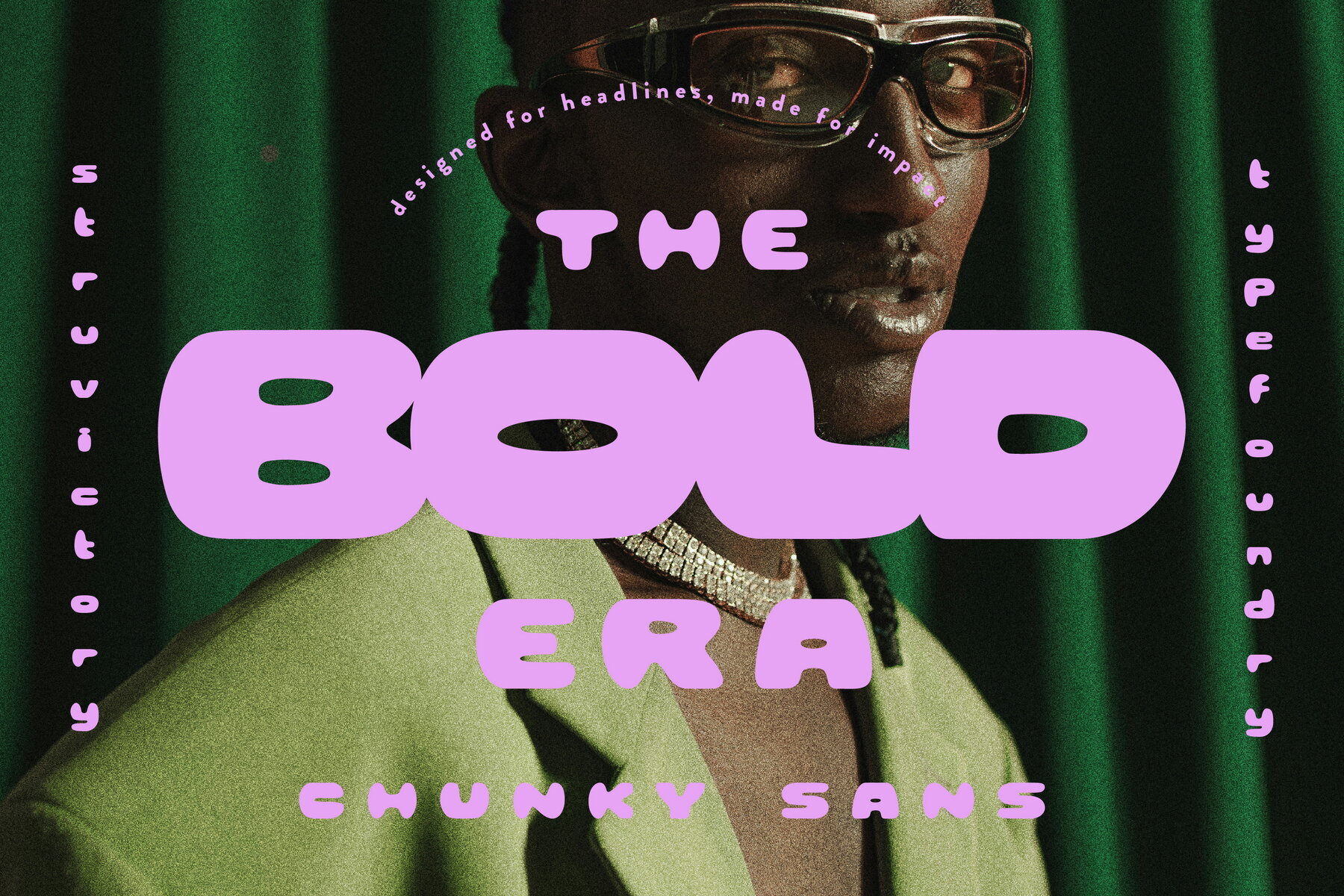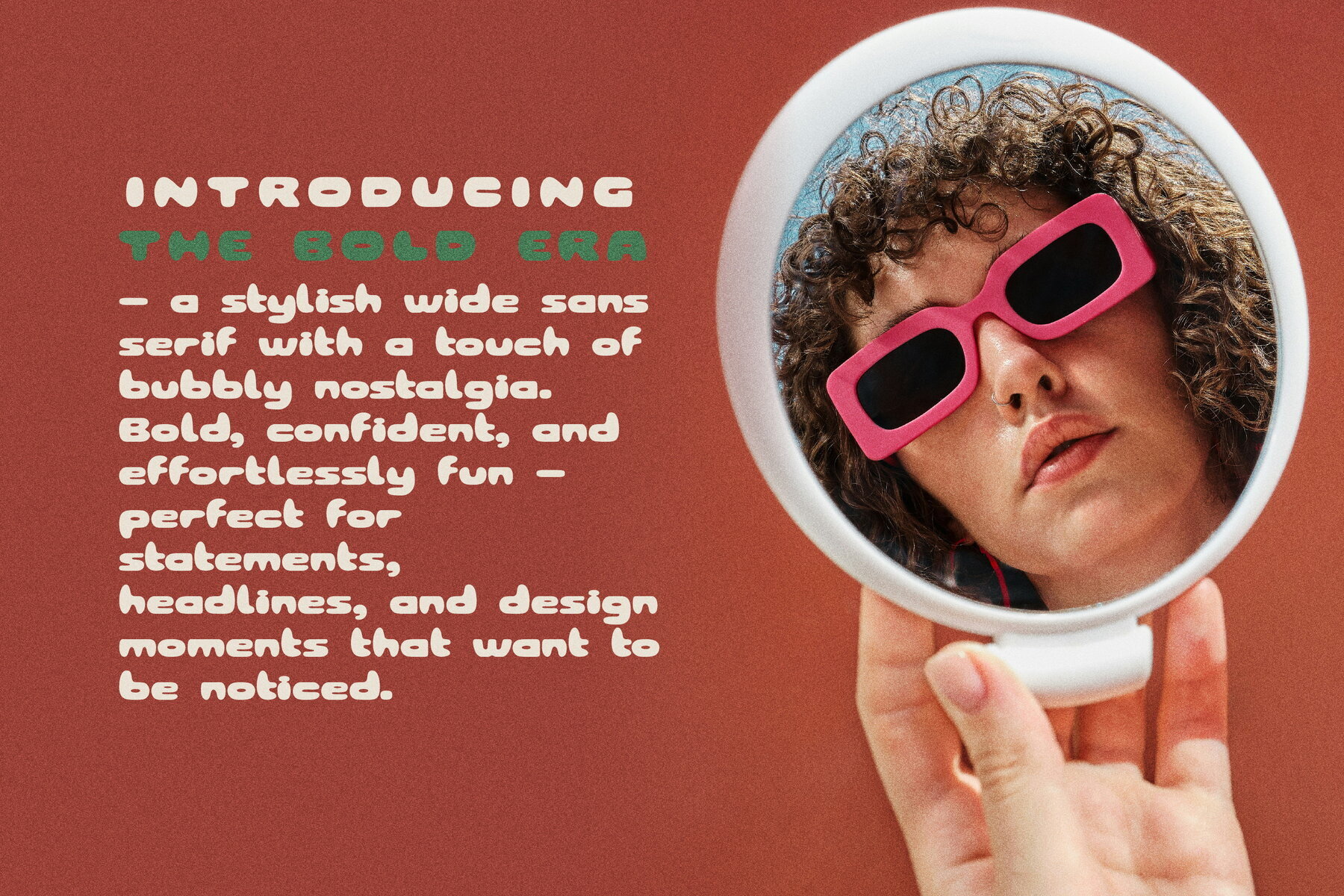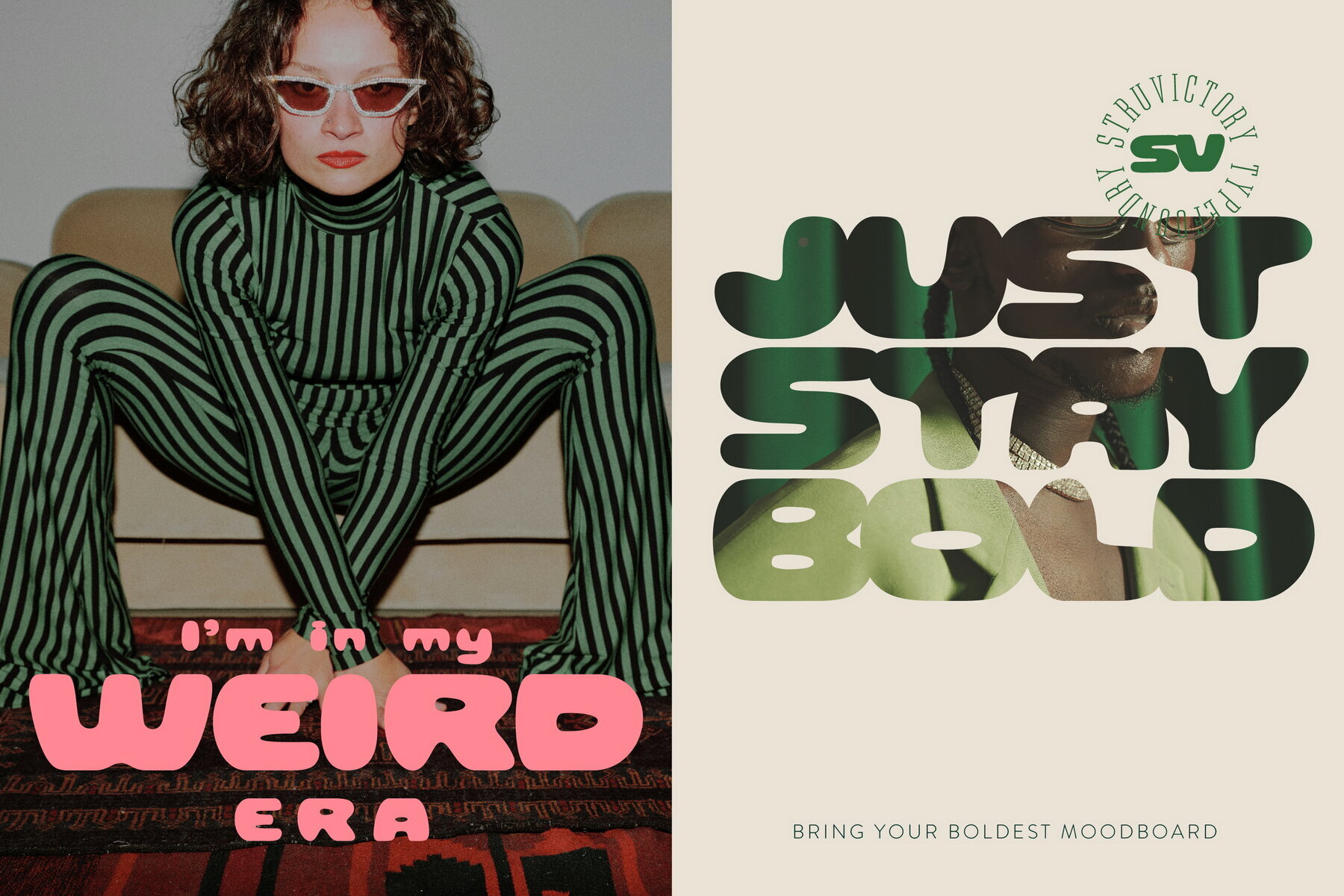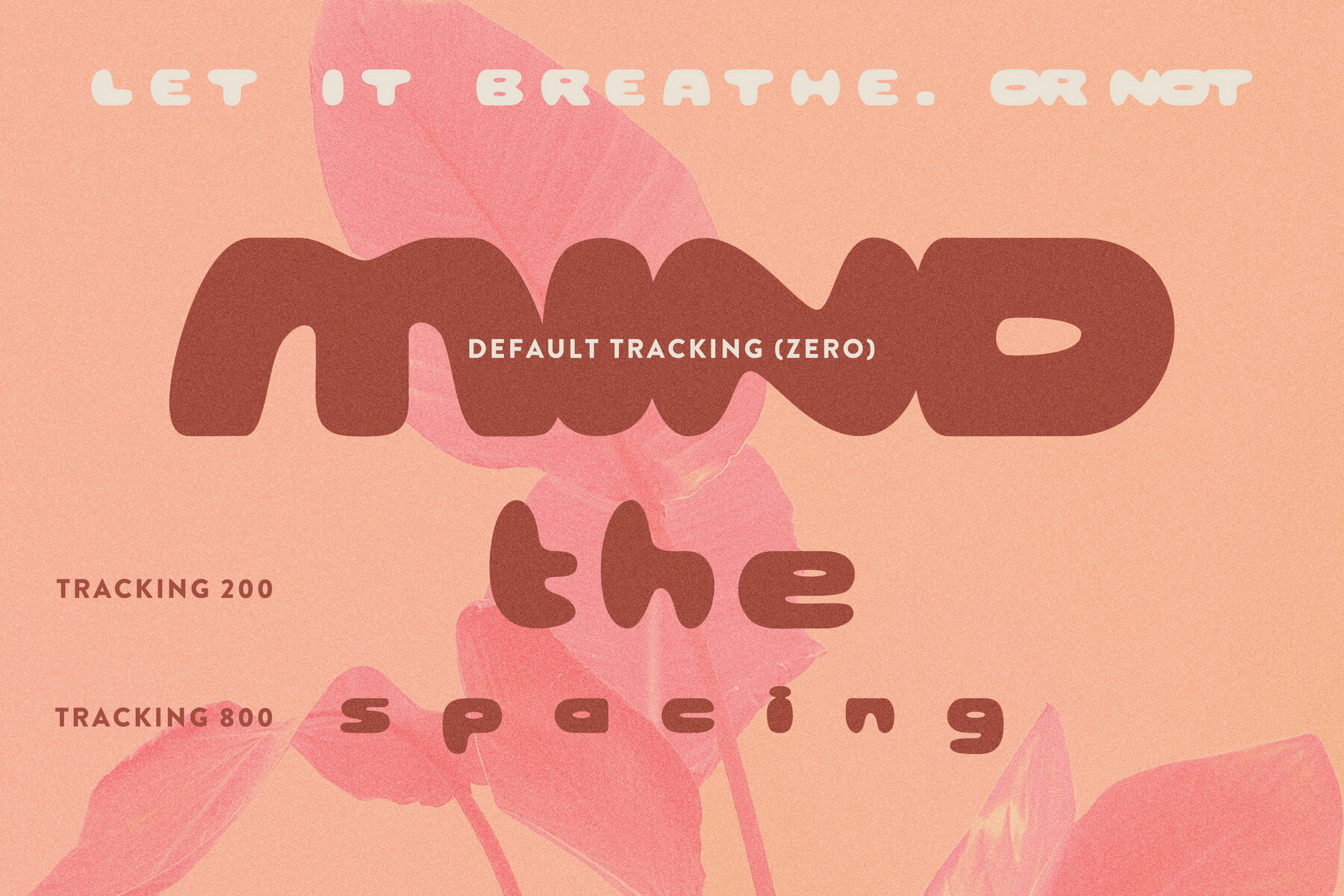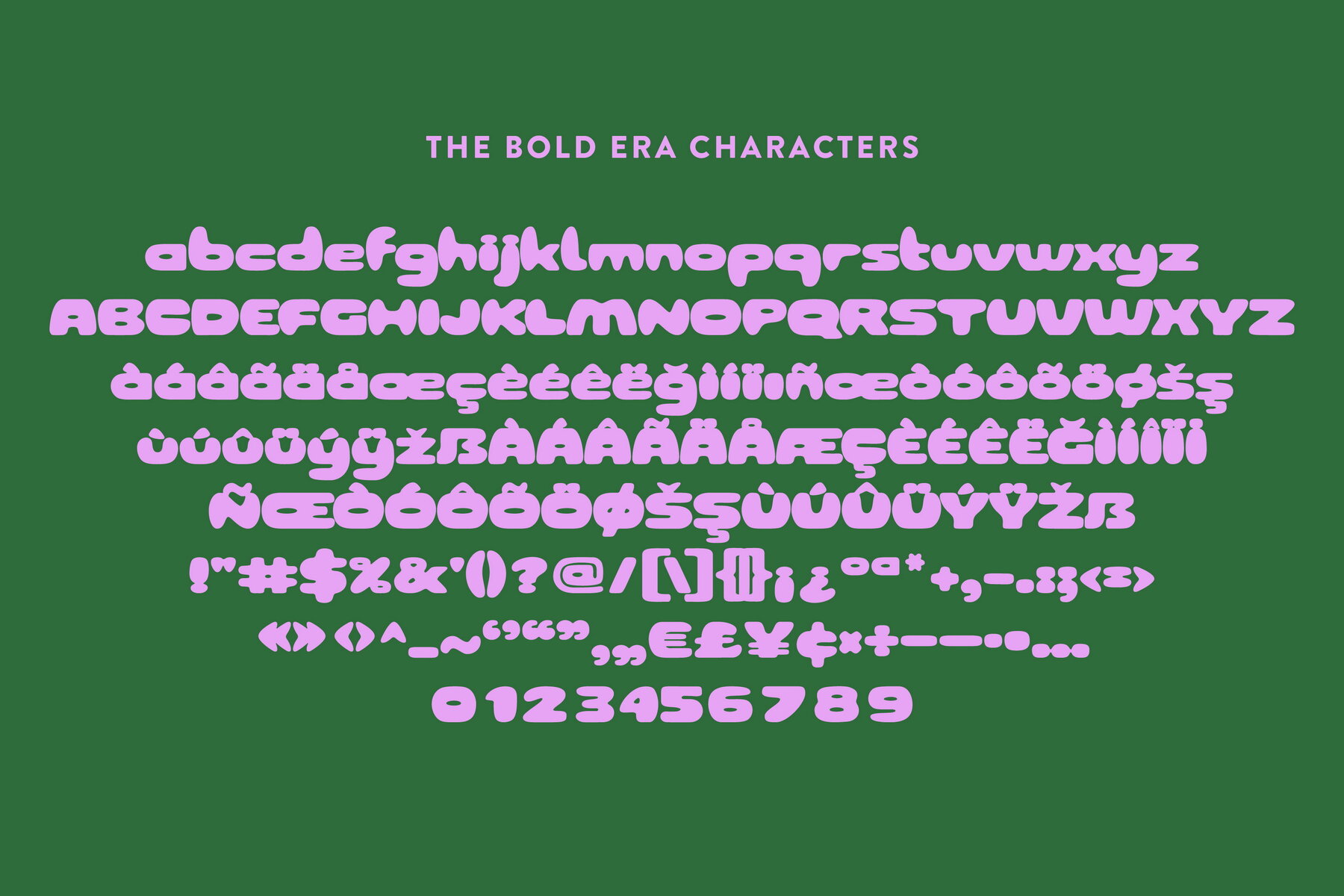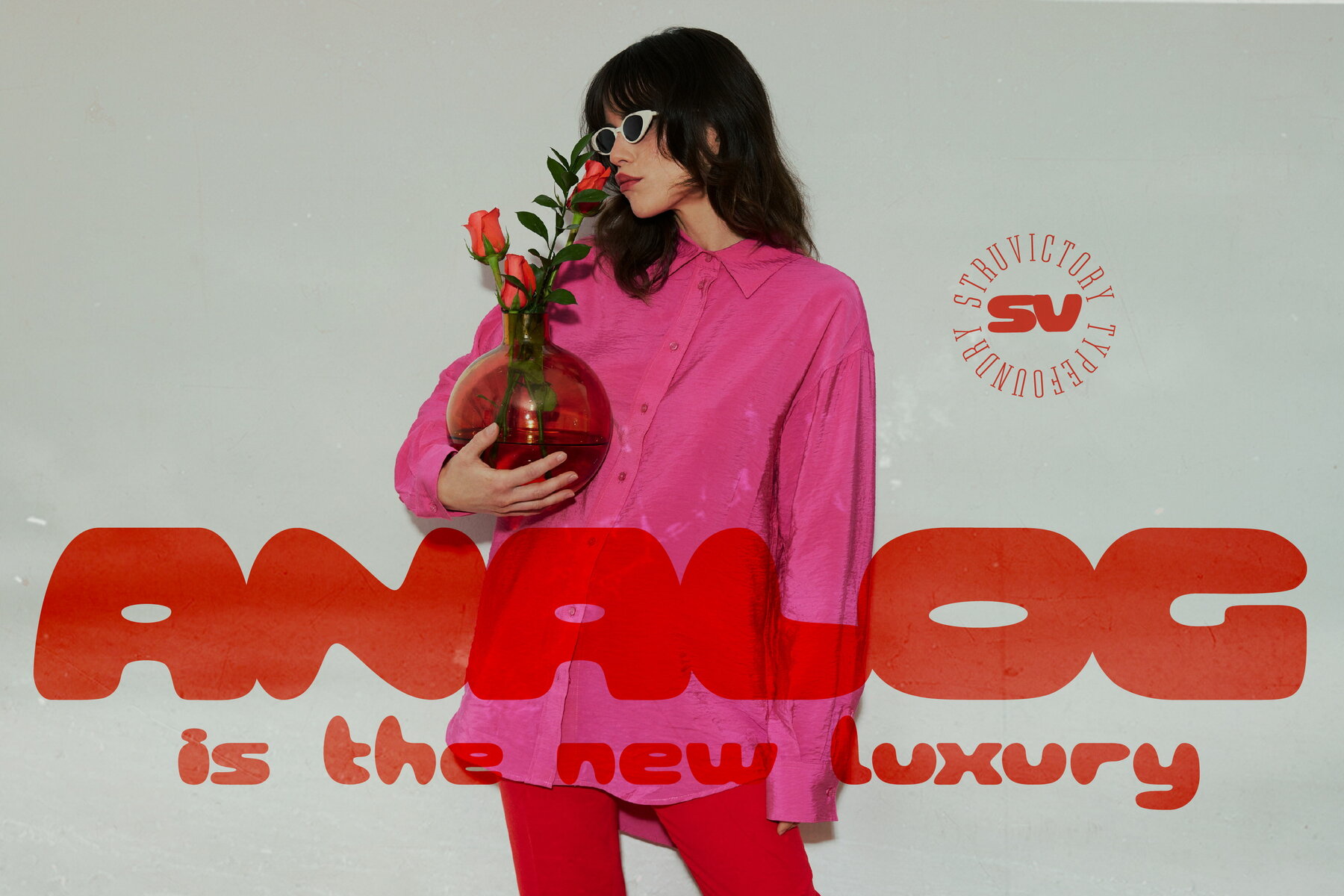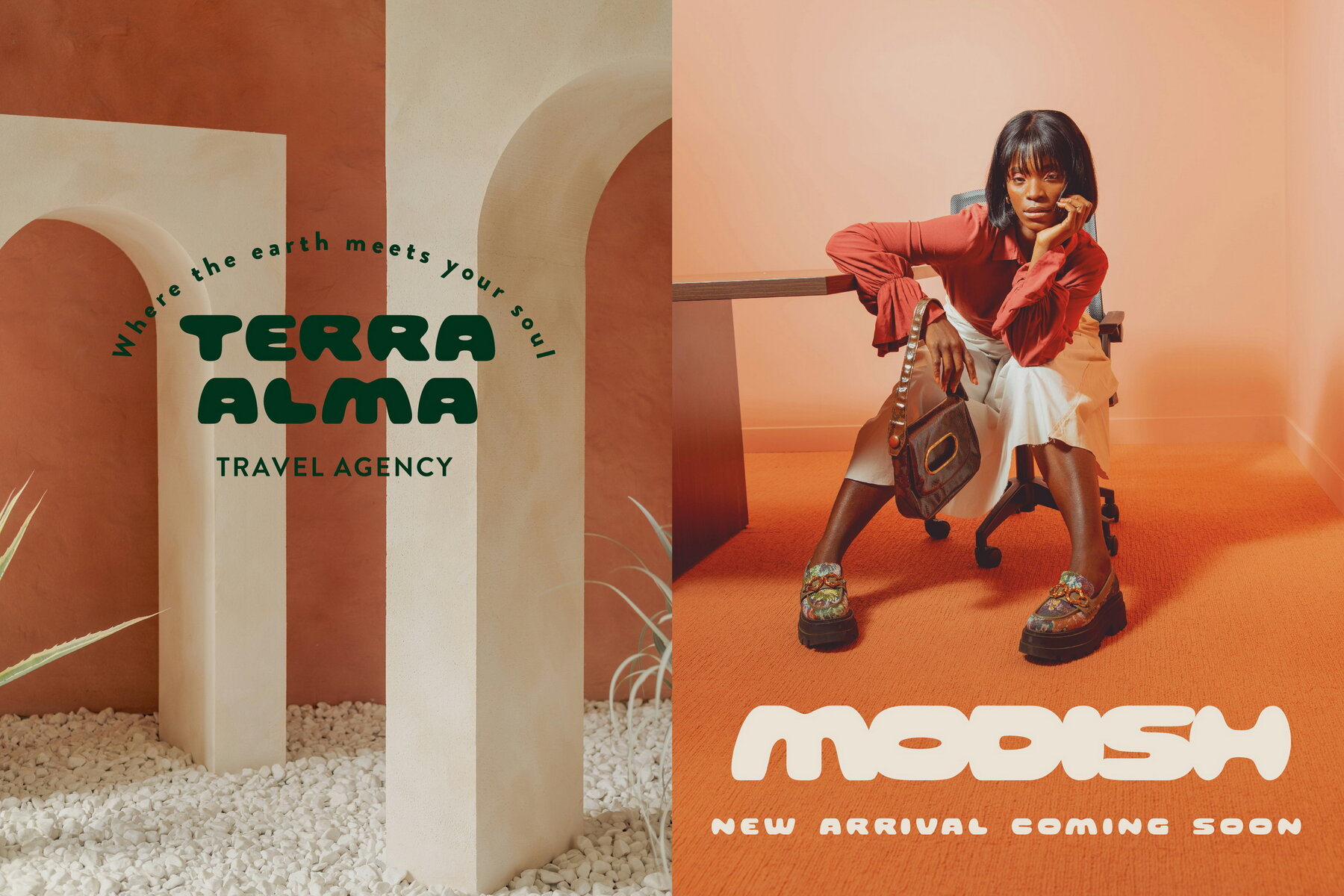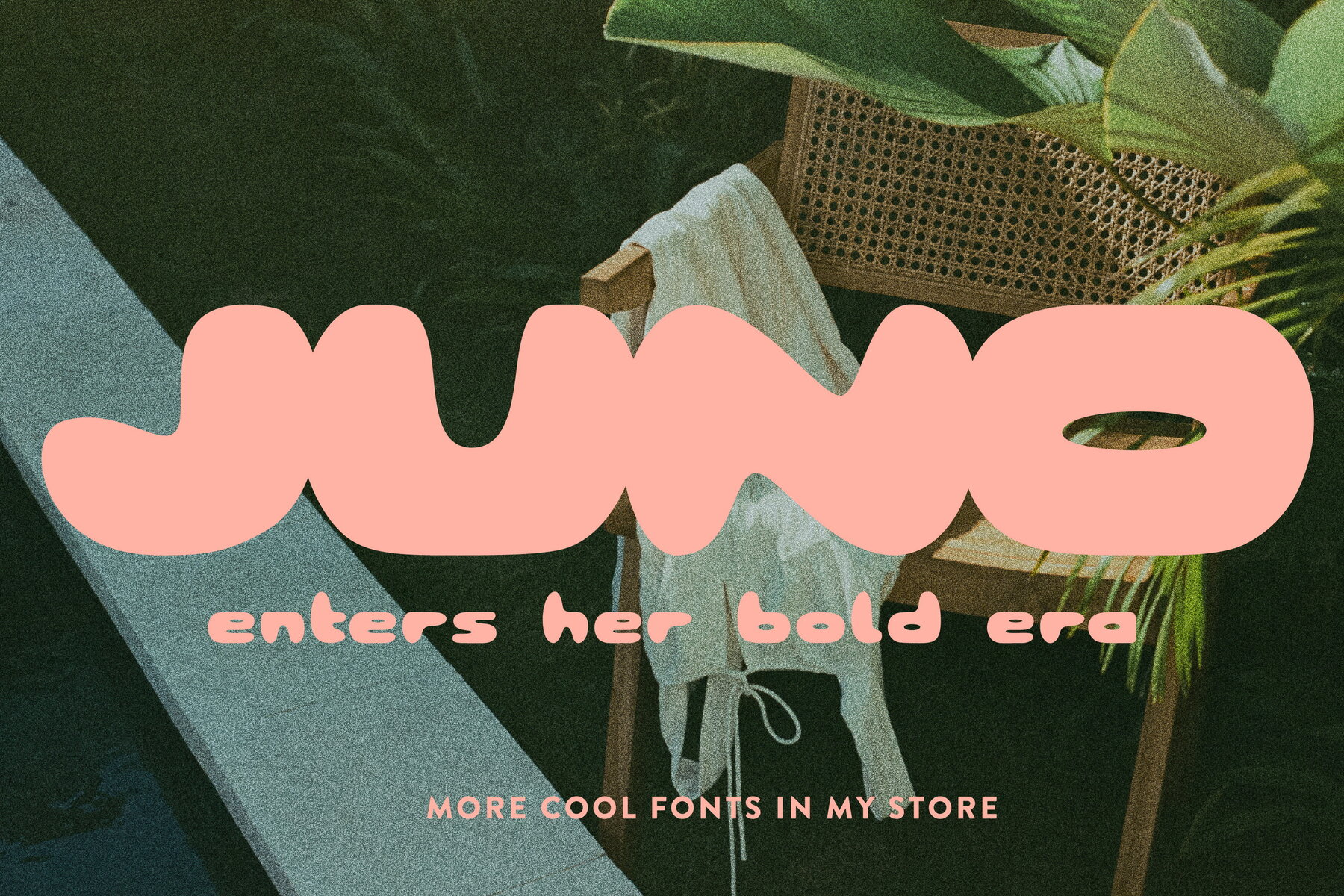
The Bold Era Sans Font
The Bold Era Sans
The Bold Era captures the essence of retro-inspired typography, seamlessly merging it with a modern sensibility. Its chunky, sans serif design evokes a playful yet sophisticated tone that speaks volumes. The ultra-tight spacing, combined with wide, confident letterforms, enhances its visual impact, making it a compelling choice for those seeking to create attention-grabbing designs. Soft curves contribute an element of charm, while the compact rhythm ensures a punchy and bold presentation. Ideal for posters, branding projects, merchandise, album covers, and bold headlines, The Bold Era truly shines when used with vibrant color schemes and vintage layouts. Adjusting the letter spacing offers additional versatility, allowing for styles that range from tightly packed to more open and airy.The Bold Era: Retro Sans Serif with a Modern Twist